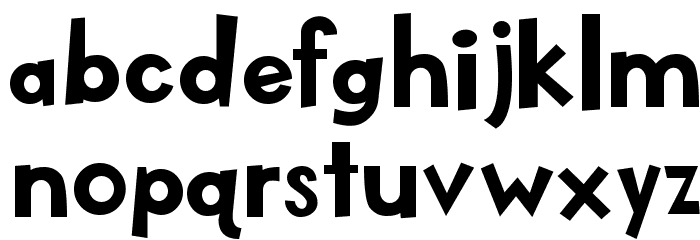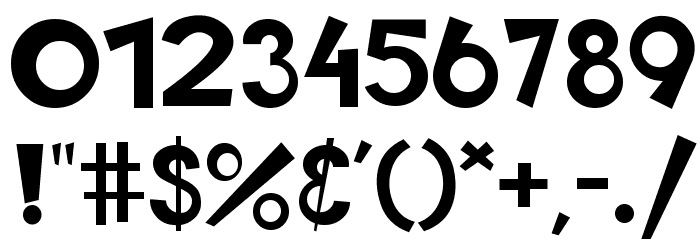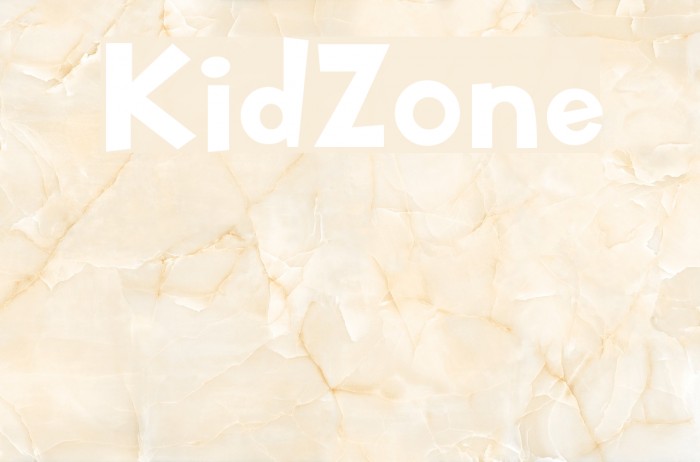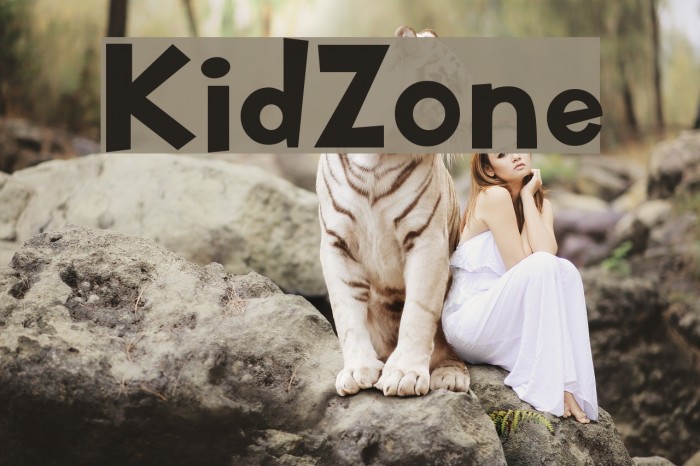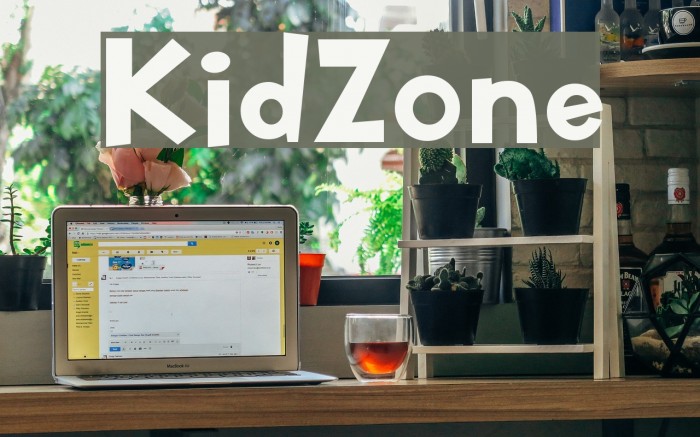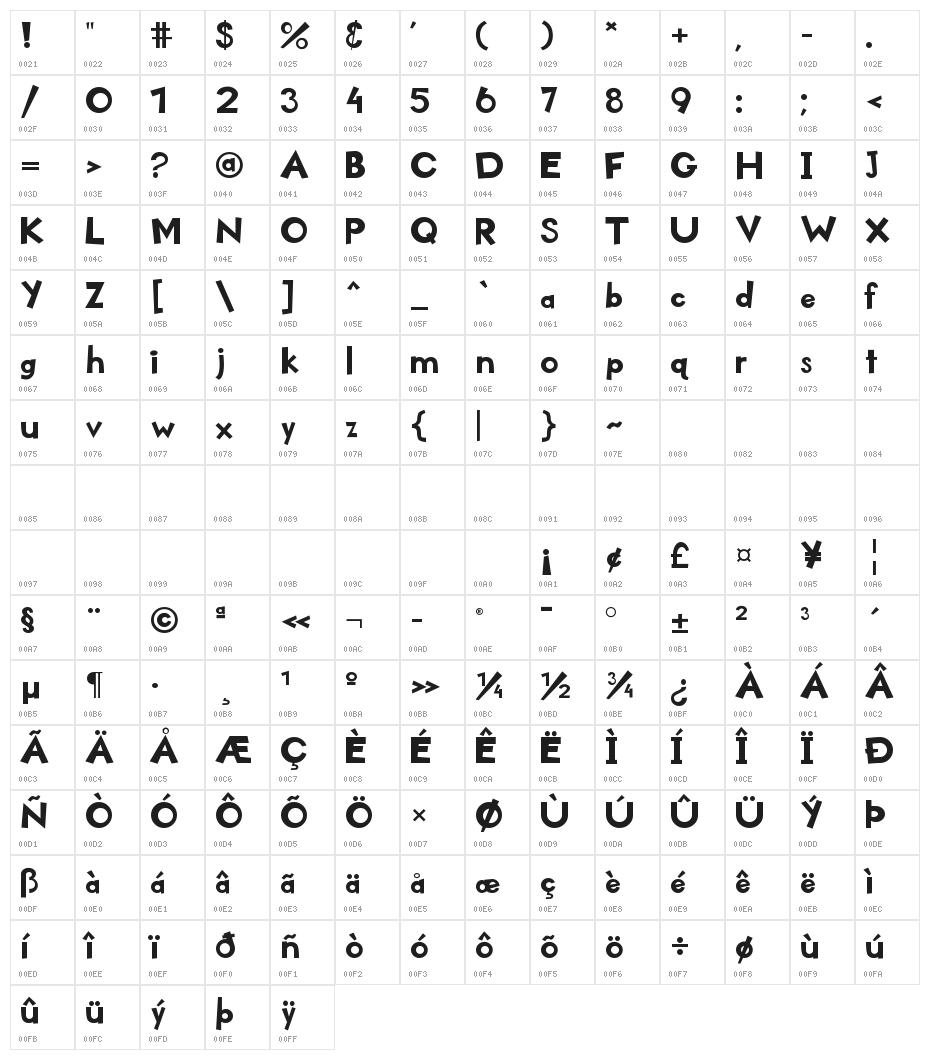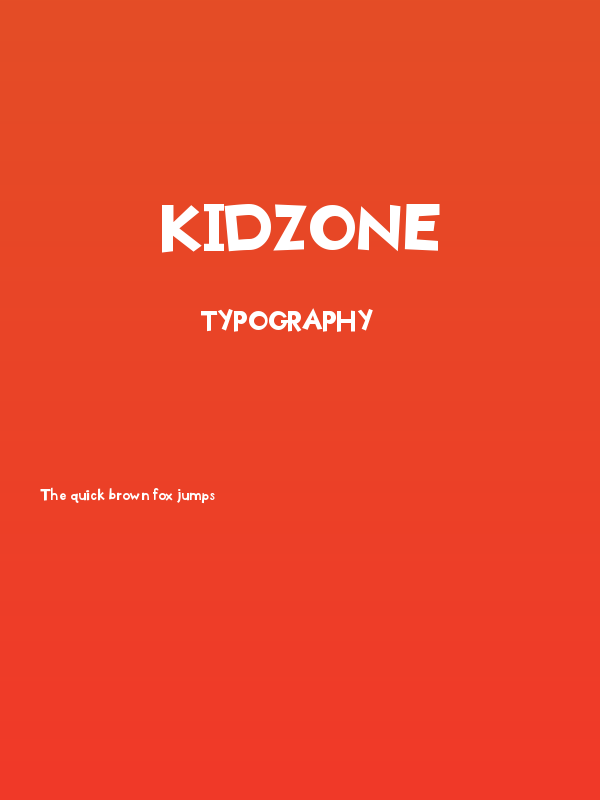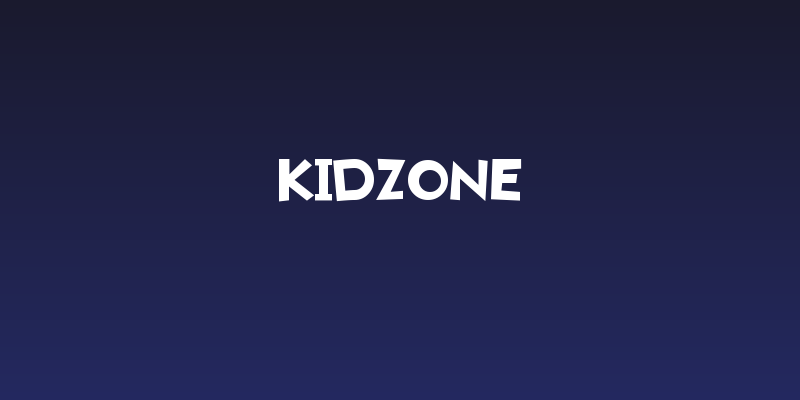
KidZone Font
This playful and bold font features a whimsical and childlike design, perfect for capturing a sense of fun and creativity. The letters are slightly irregular, adding to the playful nature of the font. The uppercase and lowercase letters maintain a consistent style, with rounded edges and a slightly exaggerated form that enhances readability. The numbers and special characters follow the same playful theme, making this font versatile for various applications. Its bold weight and high contrast make it stand out, while the character spacing is normal, ensuring clarity and legibility.
A playful, bold font with a whimsical and childlike design.
- Proposed Projects: Ideal for children's books, educational materials, toy packaging, and playful branding.
- Overall Style: Playful, Whimsical
- Use Case: Headlines, Logos, Children's materials